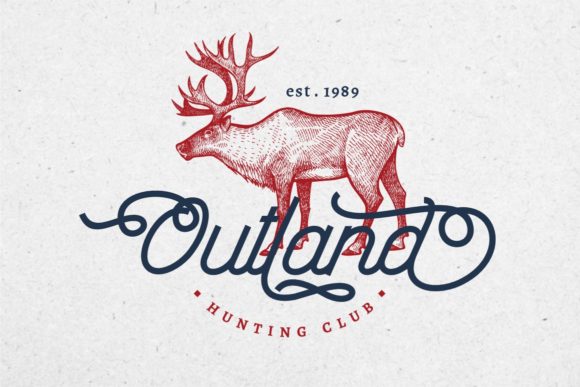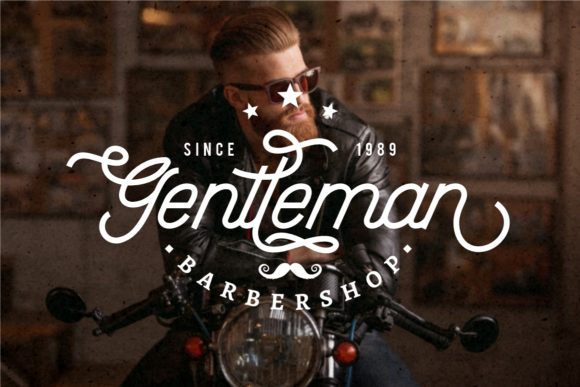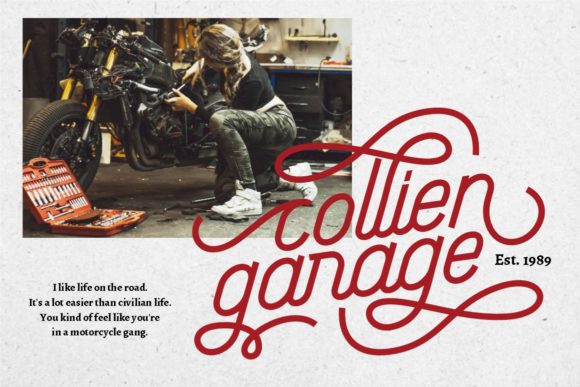
Introduction to Lyodra Font
Lyodra feels playfully nostalgic and delivers an incredible vintage aesthetic.
Use this handwritten font to add that special retro touch to any design idea you can think of .
Lyodra Font offers exceptional quality and versatility, making it a valuable addition to your design toolkit. Whether you’re creating for personal projects or commercial use, Lyodra Font delivers professional results.